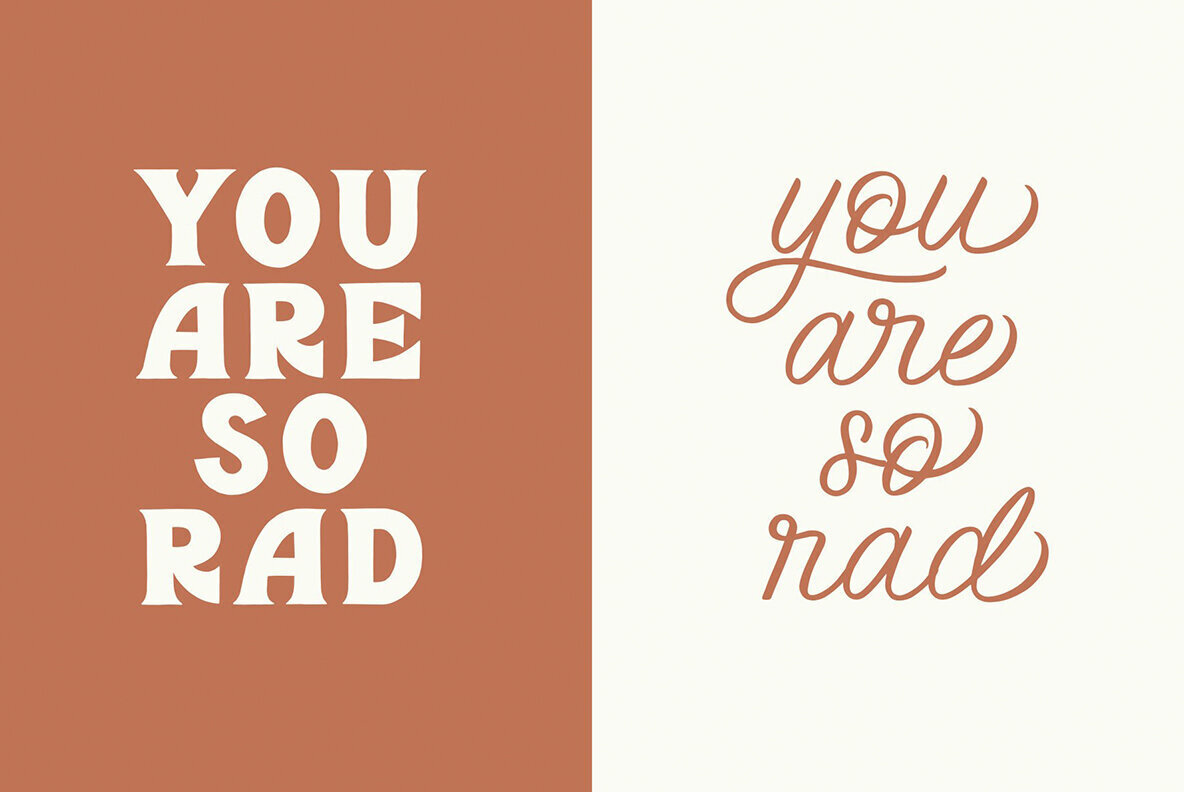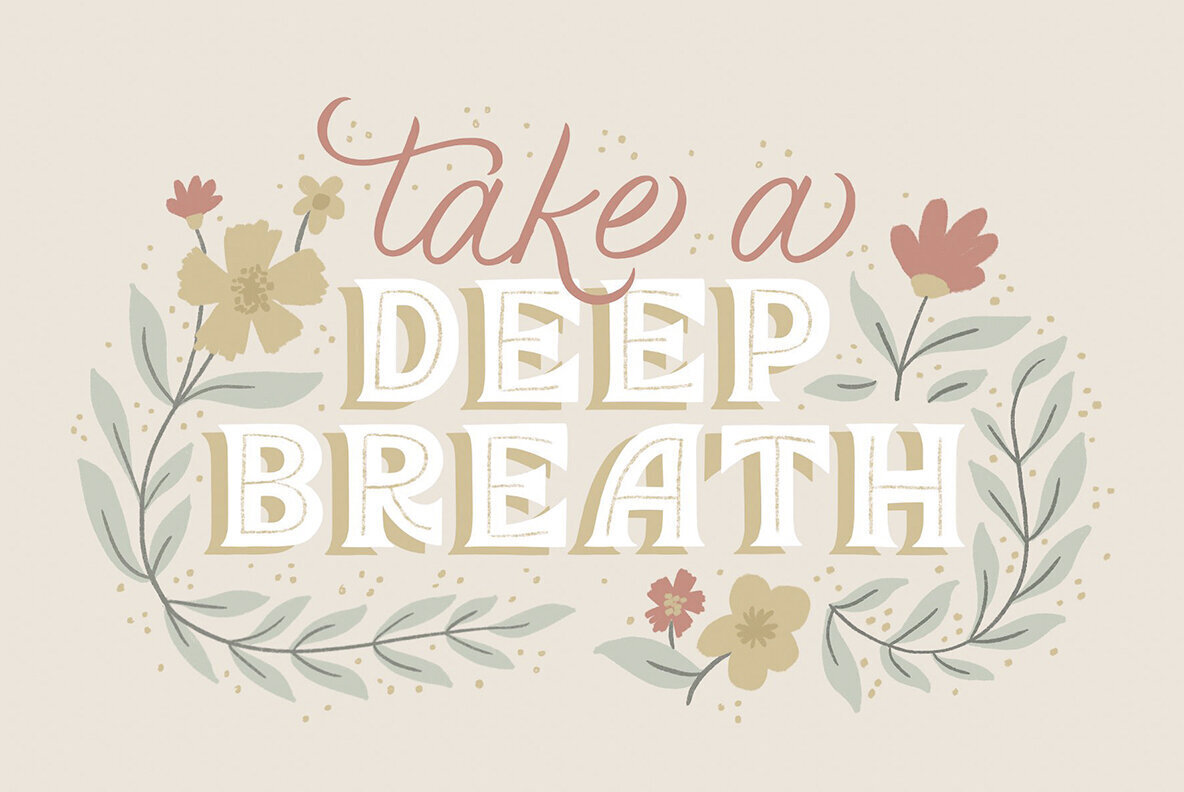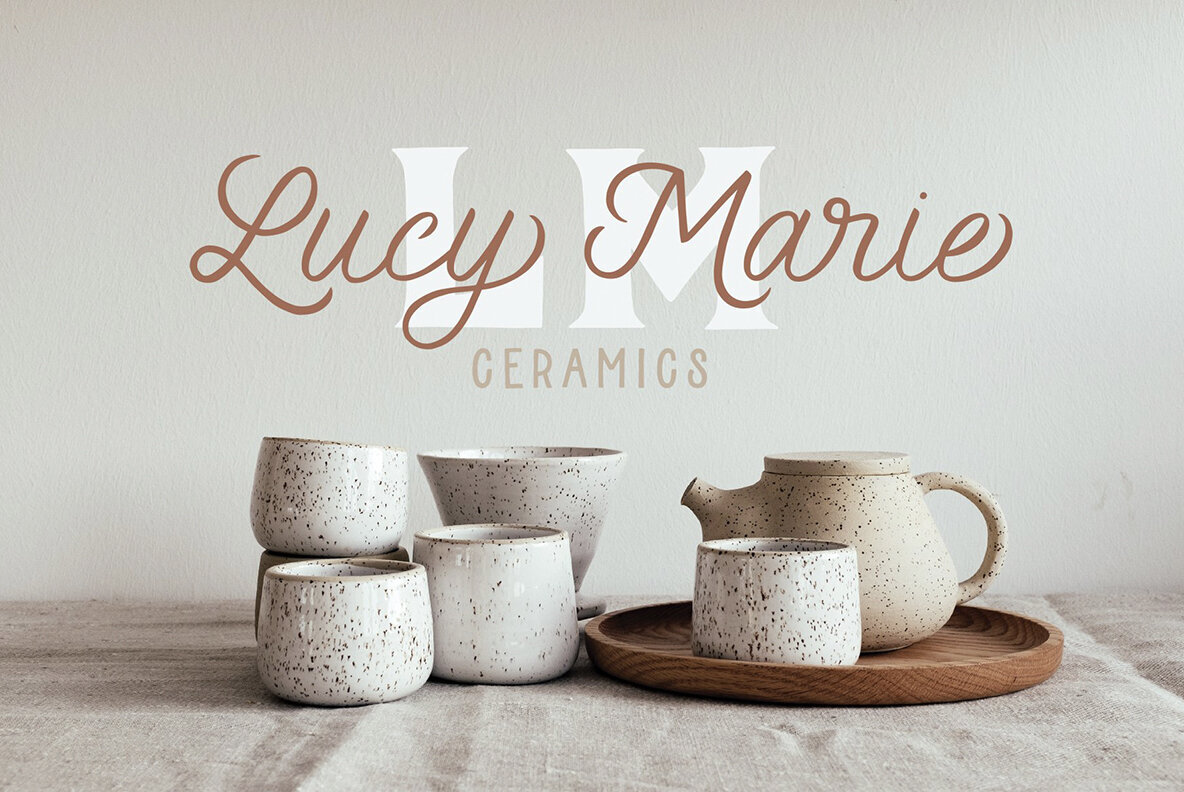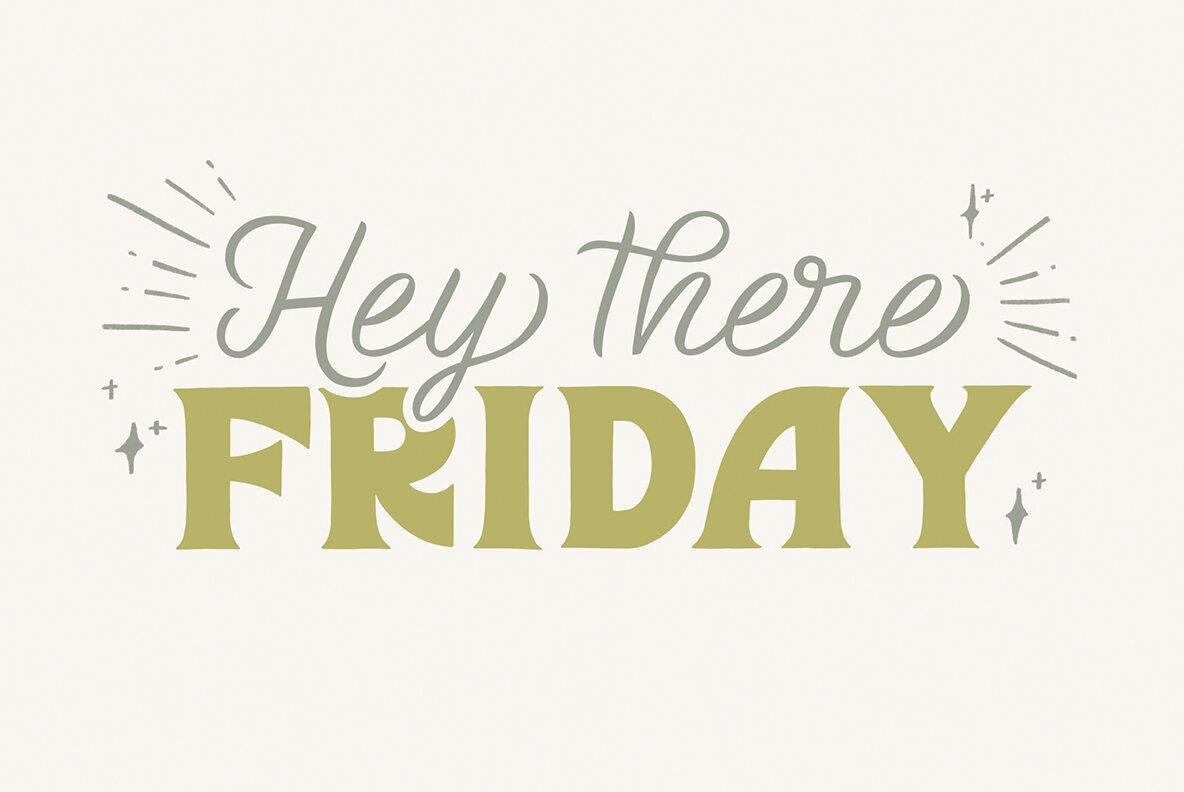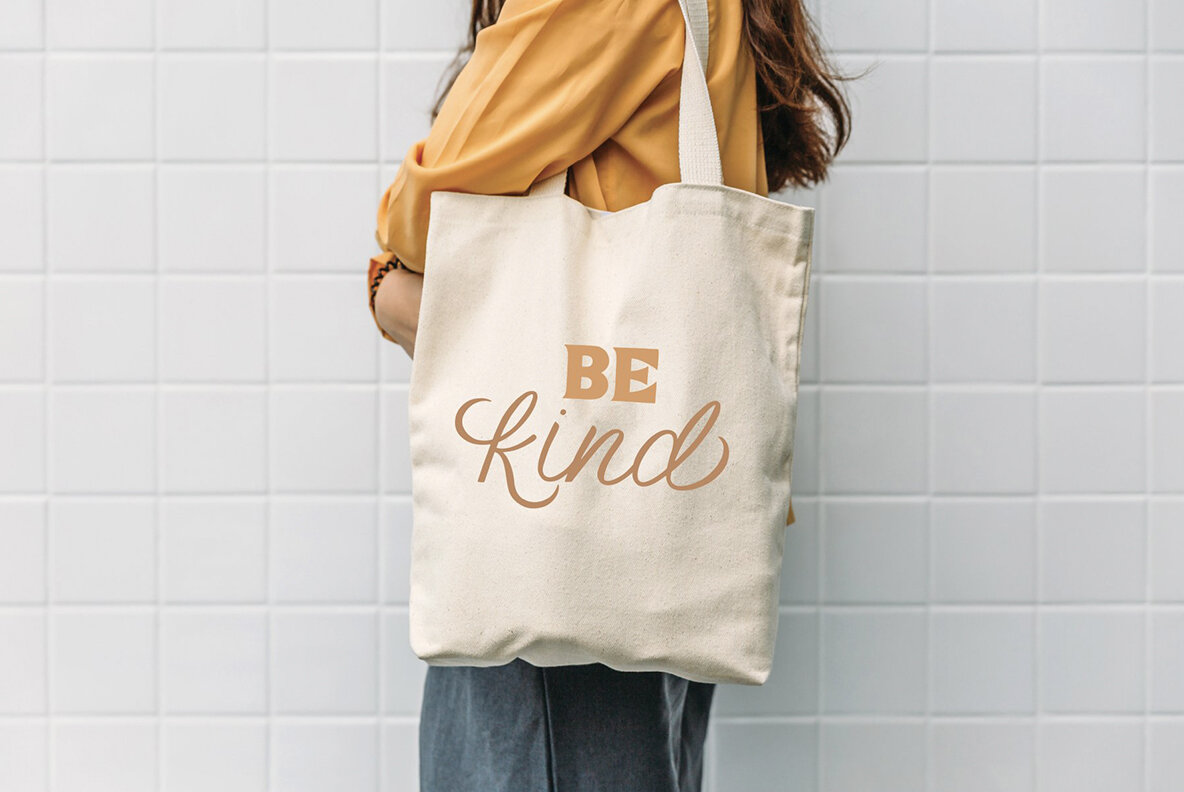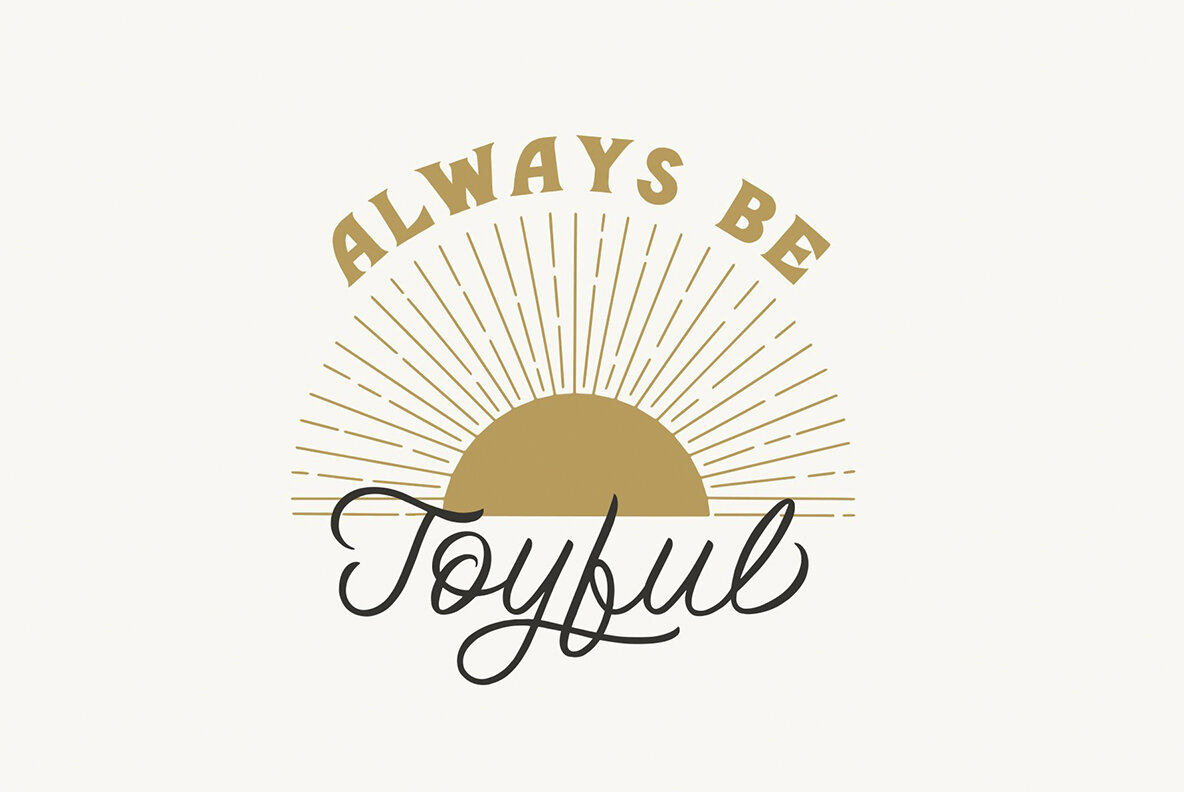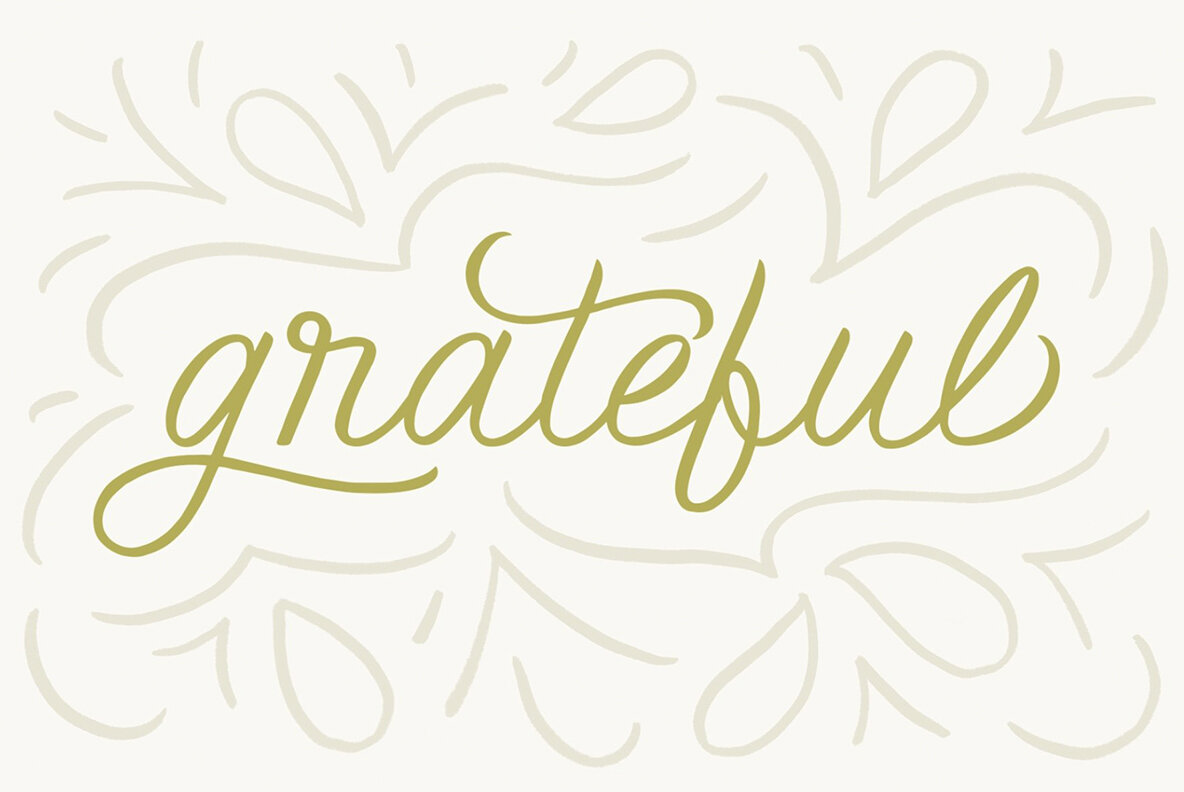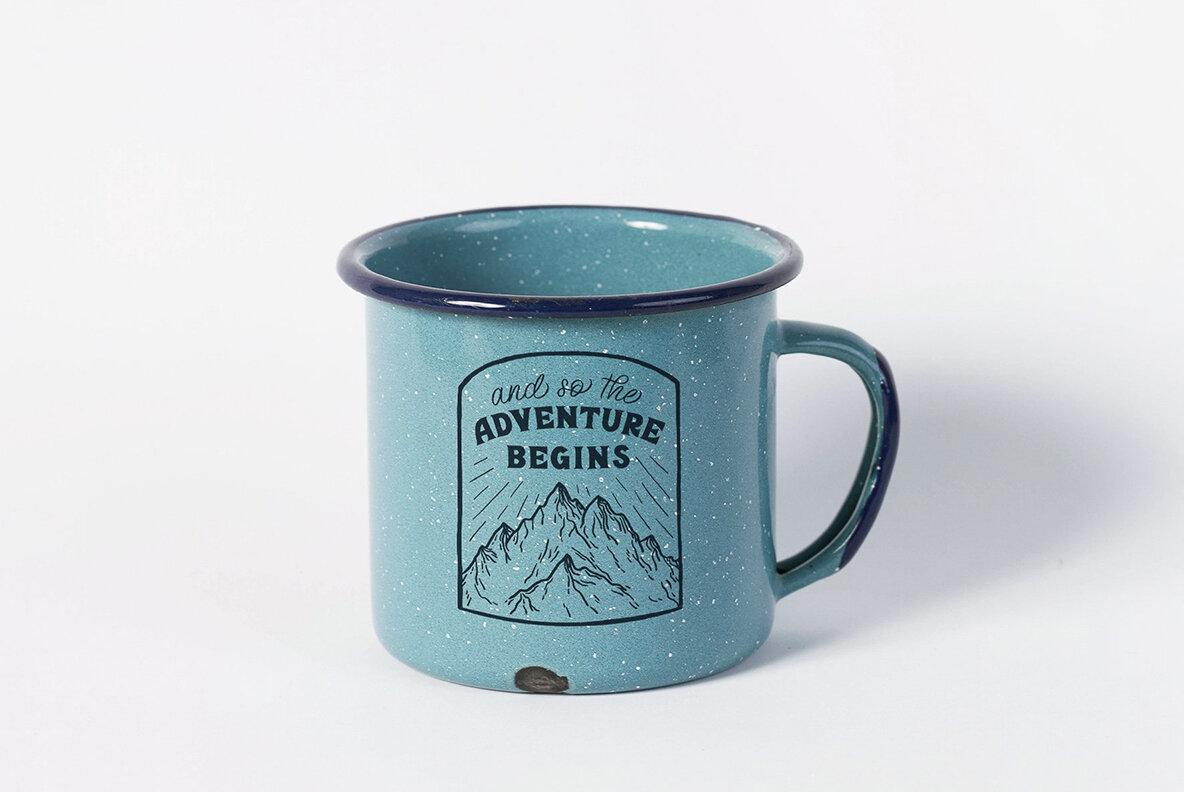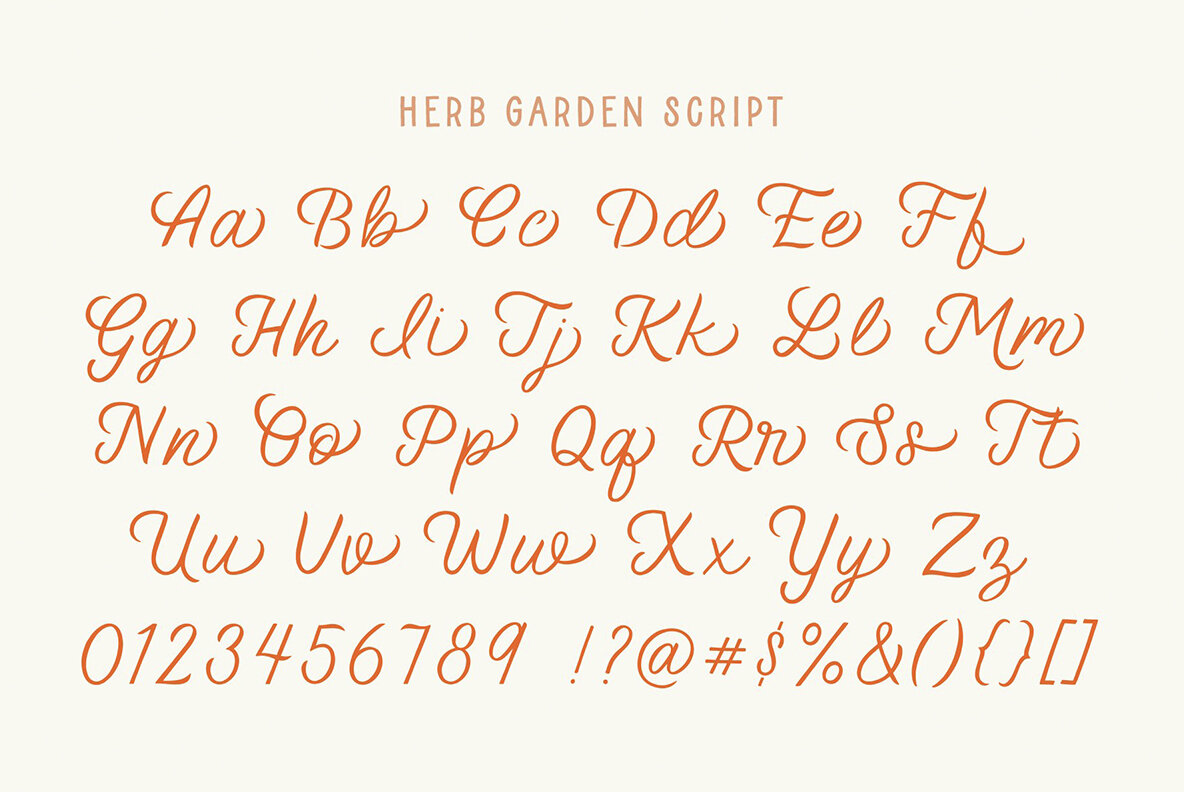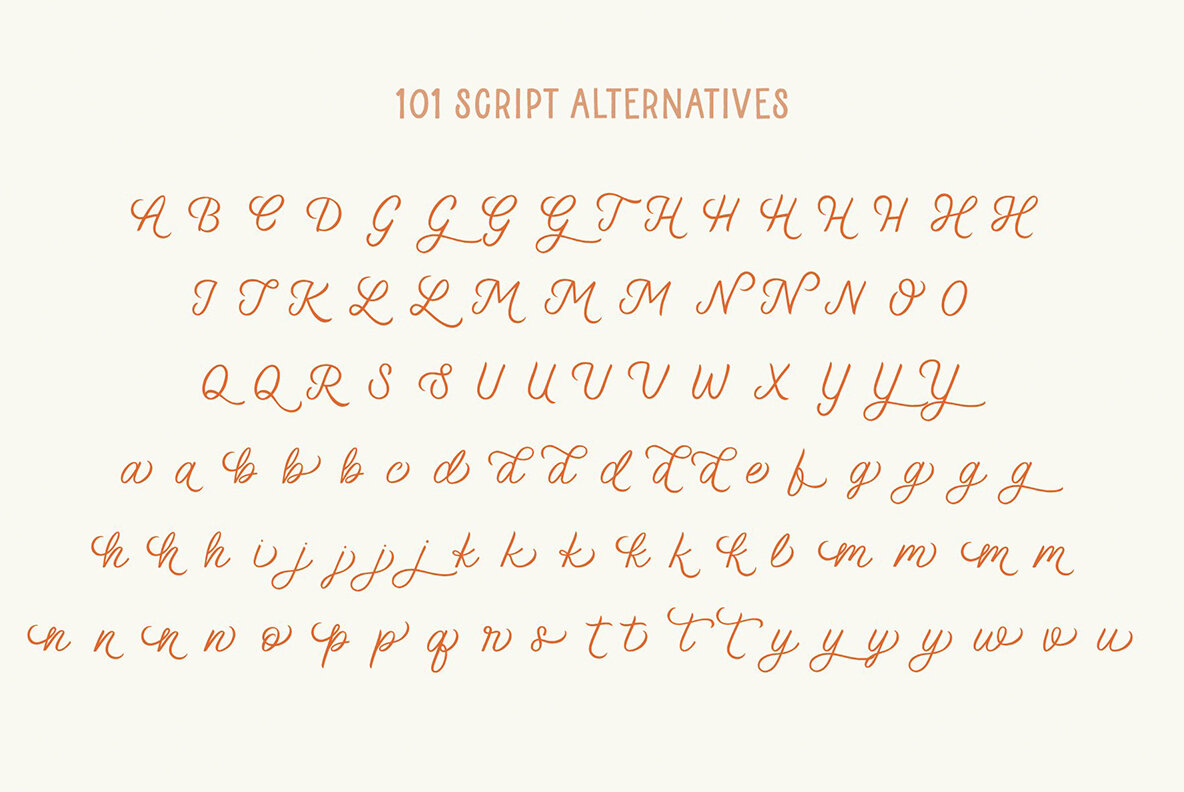
Herb Garden Font Trio 1
Hello! I'm a hand-lettering artist based in Los Angeles, California. I love creating fonts that incorporate authentic handwriting and lovable quirks. Fonts that are design-ready, with extras that make every project a breeze.